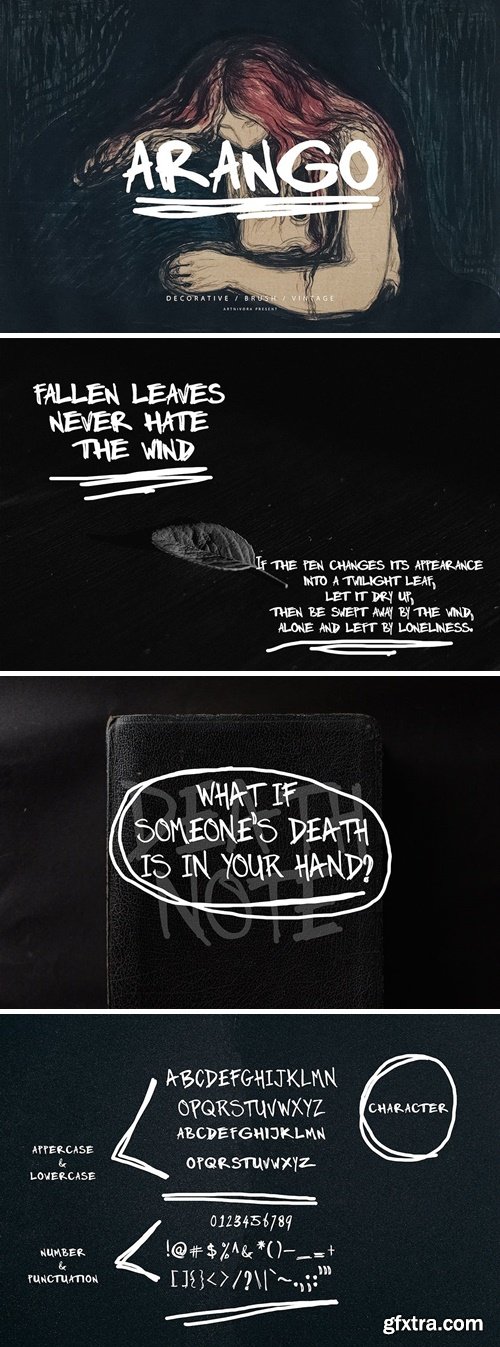
Introducing Arango, a simple and decorative font. So perfect for you who needs a typeface for logo designs, magazine, social media, brochure, and many more.